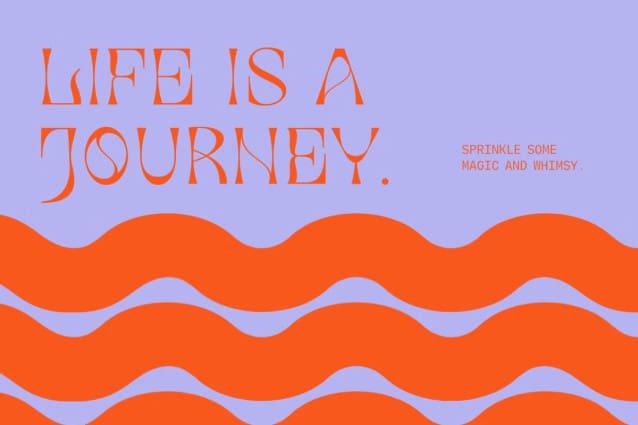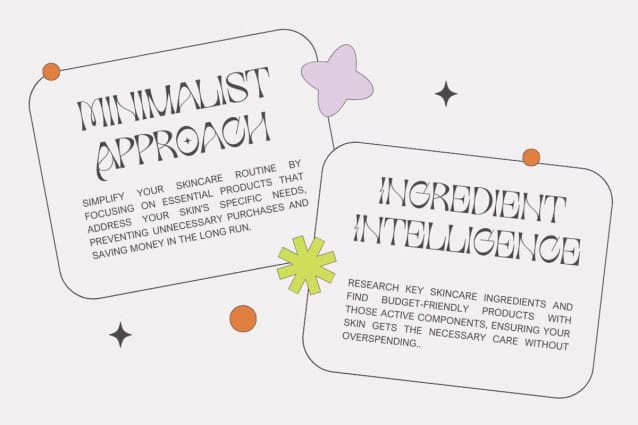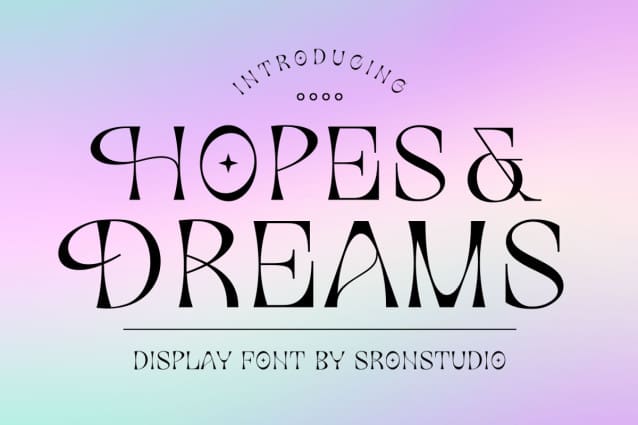
Hopes And Dreams Font
Hopes And Dreams Font a modern display font that blends contemporary style with a touch of elegance. Featuring sleek lines and a clean design, this font is perfect for creating standout headlines, logos, posters, and branding materials. “Hopes andDreams” offers a versatile and polished look, making it ideal for projects that require a sophisticated yet approachable vibe. Elevate your designs with the fresh, modern appeal of “Hopesand Dreams.”